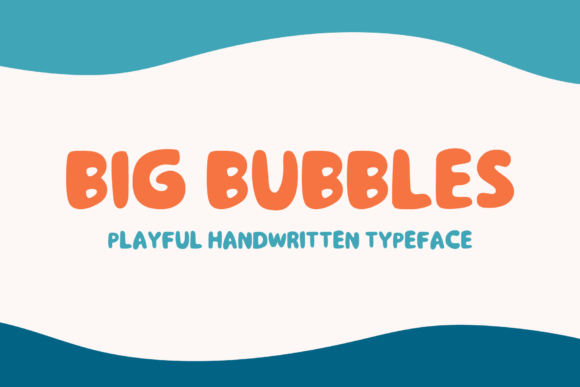
Discover the Whimsical World of Big Bubbles Font
Have you ever been in the middle of a design project, and suddenly, it feels like something’s missing? You’re not quite sure what it is, but you know it’s not quite right. I recall a recent experience where I was working on a fun craft project for a client, and I just couldn’t find the perfect font to match the playful vibe I was going for. That’s when I stumbled upon Big Bubbles, an exuberant handwritten typeface that completely transformed my design.
A Personal Review of Big Bubbles
What I Love About Big Bubbles ✨
- ✅ Playful and Whimsical: Big Bubbles is a hand-drawn, uppercase, jovial font that embodies joy and creativity. It’s perfect for designs that need a personal touch.
- ✅ Easy to Read: Despite its playful nature, Big Bubbles is surprisingly easy to read, making it suitable for headlines, titles, and even short paragraphs.
- ✅ Versatile: This font can be used in a variety of design projects, from craft and hobby projects to commercial designs.
- ⚠️ Limited Lowercase: Big Bubbles is an uppercase font, which might limit its use in designs that require lowercase letters.
- ⚠️ Glyph Limitations: While Big Bubbles has a range of glyphs, it might not have every special character or symbol you need.
The Story Behind Big Bubbles
Big Bubbles was designed with the intention of spreading joy and creativity. The designer, inspired by childhood memories of blowing bubbles and watching them float gently through the air, aimed to capture that carefree feeling in a font. The result is a playful, whimsical typeface that’s perfect for designs that need a personal touch.
Q: What is Big Bubbles font?
A: Big Bubbles is a hand-drawn, uppercase, jovial font that embodies joy and creativity.
Q: Does Big Bubbles support OpenType features?
A: Yes, Big Bubbles supports OpenType features, allowing you to access additional glyphs and stylistic alternates.